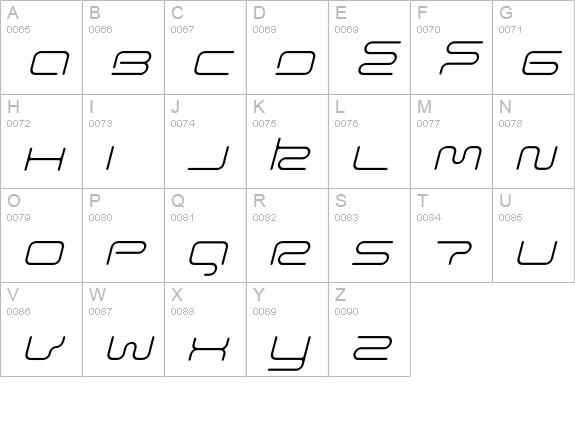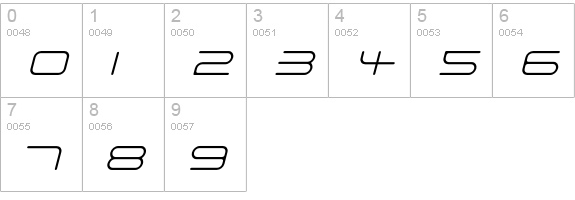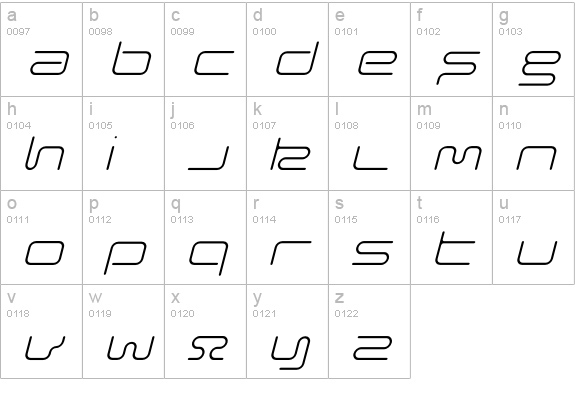
Introducing the exquisite Euphoric-ThinItalic font, a stunning typeface that exudes elegance and sophistication. With its delicate thin strokes and stylish italic design, this font is perfect for adding a touch of refinement to any project. Whether you are looking to create a modern and sleek logo, elegant invitations, or eye-catching headlines, Euphoric-ThinItalic is the perfect choice. What makes this font even more appealing is that it is available for free download at FontsMarket.com. That's right, you can add this beautiful typeface to your collection without any cost. Don't miss out on the opportunity to elevate your designs with the luxurious and versatile Euphoric-ThinItalic font. Download it now and let your creativity shine!